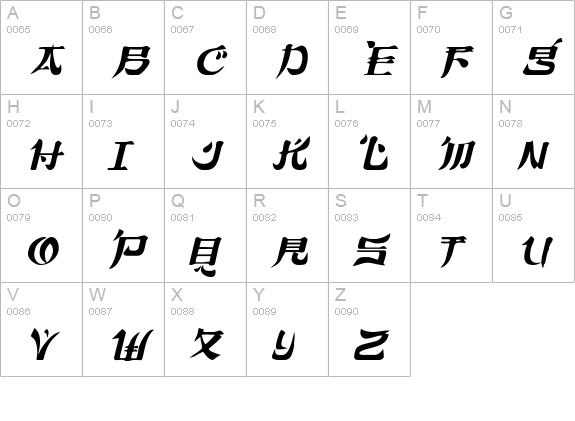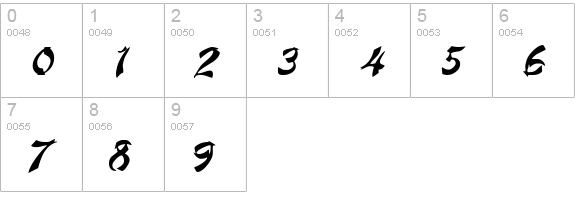
TokyoCaps Italic Font Details
TokyoCaps Italic is a distinctive, italic variant in the TokyoCaps typeface family \xE2\x80\x94 well suited to design and typography projects.
Introducing TokyoCaps Italic, a stunning and versatile font that effortlessly captures the essence of Tokyo's vibrant energy and modernity. This one-of-a-kind typeface is perfect for all your creative ventures, whether it be designing sleek logos, eye-catching advertisements, or striking headlines. TokyoCaps Italic boasts a distinctive italicized style that adds a touch of elegance and sophistication to any project. Its sleek and slender letterforms exude a sense of dynamism and movement, making it an ideal choice for conveying a sense of speed and progress. But what sets TokyoCaps Italic apart from the rest is not just its exceptional aesthetic appeal; it is also available free of charge! Yes, you read that right. This incredible font can be freely downloaded at FontsMarket.com, allowing you to explore its vast potential without breaking the bank. With its extensive character set, TokyoCaps Italic offers endless possibilities for customization and experimentation. Its bold and captivating presence is sure to make a lasting impression, leaving your audience in awe. So why wait? Elevate your designs to new heights with TokyoCaps Italic. Download it for free at FontsMarket.com and unlock a world of creative possibilities. Let the captivating allure of Tokyo inspire your next masterpiece.